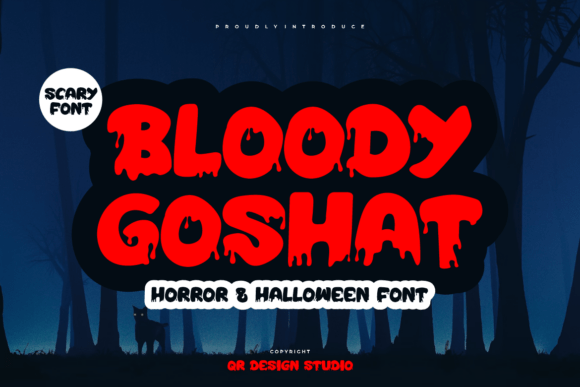
Bloody Goshat Font: The Ultimate Spooky Decorative Font for Your Creative Projects
The world of typography is vast and diverse, with countless fonts available for designers, artists, and writers to choose from. However, sometimes you need a font that stands out from the rest, a font that can add a touch of uniqueness and personality to your creative projects. That’s where the Bloody Goshat font comes in – an incredibly unique and spooky decorative font that’s sure to become a true favorite among designers and artists.
The Design and Features of Bloody Goshat Font
Bloody Goshat is a masterfully designed font that boasts an unmistakable and eerie aesthetic. Its unique design makes it perfect for a wide range of creative projects, from Halloween-themed designs and horror movie posters to spooky party invitations and haunted house branding. The font’s intricate details and bold lines give it a distinctive look that’s sure to grab attention and leave a lasting impression.
One of the standout features of Bloody Goshat is its versatility. The font comes in a range of styles and variations, allowing you to choose the perfect version to suit your project’s needs. Whether you’re looking for a bold and dramatic font or a more subtle and eerie one, Bloody Goshat has got you covered.
Benefits of Using Bloody Goshat Font
- Unique and Eye-Catching Design: Bloody Goshat’s distinctive design is sure to make your creative projects stand out from the crowd.
- Versatility: The font comes in a range of styles and variations, making it suitable for a wide range of creative projects.
- High-Quality Design: The font is designed to the highest standards, ensuring that it looks great in any context.
- Experiment with Different Styles: Bloody Goshat comes in a range of styles and variations. Experiment with different versions to find the one that works best for your project.
- Use it for Headings and Titles: Bloody Goshat is perfect for headings and titles, where its bold and dramatic design can really make an impact.
- Combine it with Other Fonts: Bloody Goshat can be combined with other fonts to create a unique and eye-catching design.
Inspiration for Using Bloody Goshat Font
Bloody Goshat is perfect for a wide range of creative projects, including:
- Halloween-themed Designs: Use Bloody Goshat to create spooky and eye-catching designs for Halloween.
- Horror Movie Posters: Bloody Goshat is perfect for creating horror movie posters that will grab attention and leave a lasting impression.
- Spooky Party Invitations: Use Bloody Goshat to create spooky and inviting party invitations that will set the tone for a fun and eerie celebration.
In conclusion, Bloody Goshat is an incredibly unique and spooky decorative font that’s perfect for designers, artists, and writers looking to add a touch of personality to their creative projects. With its bold and dramatic design, versatility, and ease of use, Bloody Goshat is sure to become a true favorite among creatives. Whether you’re working on a Halloween-themed design, a horror movie poster, or a spooky party invitation, Bloody Goshat is the perfect font to bring your creative ideas to the highest level.